Typography meets textile art in these exceptional yarn-inspired fonts that transform digital text into something you can almost touch.
From delicate embroidery threads to chunky wool cables, these typefaces capture the authentic textures, twists, and organic imperfections that make yarn so visually appealing.
Each font brings its own personality to craft projects, bringing warmth and handmade charm to everything from knitting blogs to luxury fiber brands.
Let’s explore some of the best fonts that look like yarn.
1. Knit Grotesk
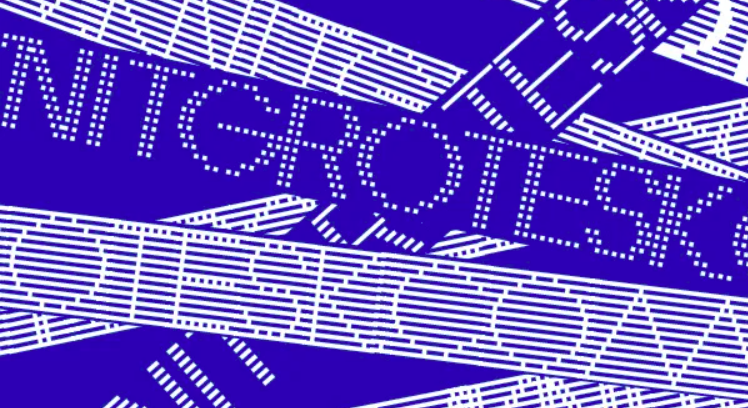
Rüdiger Schlömer pushes the limits of what’s possible in the type world with Knit Grotesk: a typeface meant for knitting.
This pixelated font works both onscreen and on fabric, and it’s ideal for bright color combinations and interesting textures.
Knit Grotesk is an actual, real-live typeface—that you can knit, featuring crisp, clean slip-stitch letters with striking striped backgrounds and three different weights.
This innovative font bridges the gap between digital typography and physical craft, allowing designers to create text that can be literally knitted into fabric using Fair Isle and slip-stitch techniques.
2. Knitto Font
Knitto Font is a great choice for those who are fans of the knitted wool look and need a font that captures that effect.
It includes upper and lowercase characters, numbers, punctuation, and multilingual support.
This font successfully replicates the chunky, cozy appearance of hand-knitted letters, with each character appearing to be constructed from thick wool yarn.
The letterforms have the characteristic bumpy texture of knitted fabric, with subtle variations that suggest the natural irregularities found in handmade knitting.
The font works particularly well for winter-themed designs and cozy branding applications.
3. Aztech Forest
This distinctive display font captures the organic, twisted nature of natural fibers and rope-like materials.
Aztech Forest features letterforms that appear to be constructed from braided or woven natural materials, with an earthy, handcrafted aesthetic that suggests traditional fiber arts techniques.
The characters have an irregular, organic quality that mimics the way plant fibers naturally twist and coil when spun into yarn or rope.
Each letter features subtle variations in thickness and texture that add authenticity and visual interest, making it perfect for rustic branding, outdoor adventure companies, and eco-friendly craft businesses that want to emphasize their connection to natural materials.
4. Alpha Pikture
Alpha Pikture brings a unique pictorial quality to yarn-inspired typography, with letterforms that incorporate decorative elements reminiscent of embroidered samplers and cross-stitch alphabets.
This font captures the traditional aesthetic of needlework alphabets found in vintage embroidery patterns and samplers.
Each character is designed with the precision and decorative flair typical of counted cross-stitch work, featuring clean lines and structured patterns that suggest the grid-based nature of needlework charts.
The font works exceptionally well for traditional craft projects, vintage-inspired branding, and educational materials where a connection to historical needlework traditions is desired.
5. Cowboy Rope
True to its name, Cowboy Rope perfectly captures the twisted, three-dimensional appearance of actual rope and heavy-duty yarn.
This font features letterforms that appear to be constructed from thick, twisted rope with authentic shadowing and highlighting that creates a convincing three-dimensional effect.
Each character shows the characteristic spiral pattern of rope construction, with individual strands visible as they twist around each other.
The font includes subtle variations in rope thickness and tension that add realism and suggest the natural properties of actual rope.
This makes it ideal for Western-themed designs, outdoor brands, nautical applications, and any project where durability and rugged craftsmanship need to be conveyed through typography.
6. Xmas Sweater Switch
This festive font captures the cozy, patterned aesthetic of holiday sweaters and Fair Isle knitting.
Xmas Sweater Switch features letterforms that incorporate traditional Nordic and Christmas knitting patterns, with decorative elements that suggest the colorwork techniques used in holiday sweaters.
Each character appears to be knitted with multiple colors in traditional Fair Isle patterns, complete with the characteristic geometric designs and snowflake motifs.
The font successfully replicates the chunky, textured appearance of hand-knitted holiday sweaters, making it perfect for seasonal marketing, holiday greeting cards, winter fashion brands, and any application where warmth and festive cheer are the desired emotional response.
Also Read: Best Google Doc Fonts That Look Like Blood
7. Simple Stitch
As its name suggests, Simple Stitch focuses on clean, readable letterforms that capture the essence of basic embroidery stitches without overwhelming decorative elements.
This font features characters that appear to be outlined in running stitch or backstitch, with subtle texture that suggests hand-embroidered lettering.
The simplicity of the design makes it highly versatile and readable at various sizes, while still maintaining the authentic handmade quality of needlework.
Each letter shows the slight irregularities and organic imperfections that characterize hand-stitched work, including natural variations in stitch length and spacing that add charm and authenticity to the overall design.
Discover: Best Fonts That Look Like Rope
8. Knitfont
Knitfont is specifically designed to replicate the appearance of knitted letters, with each character constructed to look like actual knitted fabric.
This font captures the distinctive texture of stockinette stitch, with letterforms that show the characteristic ‘V’ shapes of knit stitches arranged in neat rows and columns.
The font includes authentic knitting details such as the slight dimensional quality of knitted fabric and the way individual stitches catch light differently.
The consistent texture throughout each character creates a unified appearance that suggests actual knitted text, making it perfect for knitting pattern covers, yarn shop branding, and any application where the cozy warmth of hand-knitted items needs to be conveyed through typography.
Also Read: Best Word Fonts For Coding
9. Kingthings Needles
Part of the extensive Kingthings font collection, Kingthings Needles draws inspiration from various needlework techniques and sewing notions.
This decorative font features letterforms that incorporate elements reminiscent of sewing patterns, embroidery hoops, and needlework tools.
Each character is designed with the precision and attention to detail characteristic of fine needlework, with decorative elements that suggest the tools and techniques used in various forms of stitchery.
The font captures the delicate, precise nature of needlework while maintaining readability and visual appeal, making it suitable for craft instruction materials, sewing pattern packaging, and businesses focused on precision needlework and embroidery.
Explore: PPT Fonts That Look Like Chalk
10. Alphapix
This pixelated font brings a modern, digital twist to yarn-inspired typography while maintaining the grid-based structure reminiscent of cross-stitch and needlepoint patterns.
Alphapix features letterforms constructed from individual pixel blocks that mirror the systematic approach of counted thread embroidery techniques.
Each character appears to be plotted on a grid, similar to how cross-stitch patterns are charted, making it perfect for bridging the gap between digital design and traditional needlework.
The font’s clean, geometric structure captures the precision required in pixel-based crafts while suggesting the methodical nature of following stitch-by-stitch patterns.
This makes it ideal for modern craft tutorials, digital embroidery patterns, and contemporary fiber arts branding that wants to connect traditional techniques with digital innovation.
Conclusion
These yarn-inspired fonts bring tactile warmth and handcrafted charm to digital projects.
From delicate embroidery-style scripts to chunky wool-inspired display faces, each font captures different aspects of fiber arts.
Pick the one that suits your project.